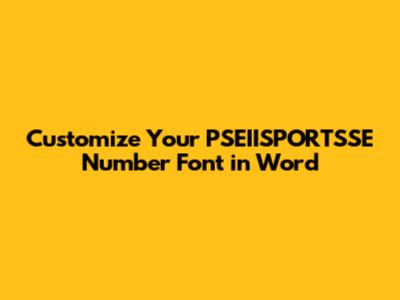
Hey sports fanatics and Word wizards! Ever wanted to give your documents, presentations, or even your fantasy league write-ups a personalized touch with some awesome PSEIISPORTSSE number fonts? You're in luck, because we're diving deep into how to customize your number fonts, especially the unique style of PSEIISPORTSSE, right within Microsoft Word. I'll walk you through everything, making it super easy to add that professional or personal flair you're after. Get ready to transform those plain numbers into something eye-catching! Let's get started.
Understanding PSEIISPORTSSE Number Fonts
Before we jump into the nitty-gritty, let's talk about what makes PSEIISPORTSSE number fonts special. Think of these as the stylized digits you see in sports scores, team jerseys, or even cool digital displays. The key is in their distinct design – they're often bold, clear, and designed for high visibility. They usually boast a consistent look, making them instantly recognizable and adding a sporty feel to your documents. These fonts come in various styles, from classic block numbers to more elaborate designs, depending on the look you're going for. Finding the right PSEIISPORTSSE number font can significantly elevate the visual appeal of any document, whether you're creating a flyer for a local sports event, designing a team roster, or just spicing up a report with some athletic aesthetics. They're designed to be easily readable from a distance, which makes them perfect for any visual display.
Now, how do you actually get these fonts into your Word documents? That's where we're headed next. The process involves a couple of simple steps: finding the fonts, installing them on your computer, and then using them in Word. It's a bit like learning a new skill, but trust me, it’s easier than a free throw with no pressure. Once you know how to do it, you'll be able to create some amazing sports-themed documents that will definitely stand out. Keep in mind, you're not limited to just sports; the right PSEIISPORTSSE font can add a powerful visual element to any project. Whether it’s presentations, newsletters, or even social media graphics, these fonts will give you that edge.
Using the New Font in Microsoft Word
Alright, time to bring your new PSEIISPORTSSE number font to life in Microsoft Word! Once you've installed the font and restarted Word, you're ready to start using it. Open your Word document or start a new one. Now, type the numbers you want to customize. Highlight the numbers, and then go to the font selection drop-down menu on the Home tab of the ribbon. Scroll through the font list until you find your installed PSEIISPORTSSE font. Select it. Boom! Your numbers should now be displayed in the new font.
If you want the font to look a certain way, like bold or italic, you can use the font style options available in the font group on the Home tab. You can also adjust the font size to fit your needs. Word's formatting tools let you fine-tune the numbers. For instance, you might want to increase the size to make them more visible, or perhaps make them bold to match the style of the text around them. Experiment with the different options available to see what works best for your specific document.
Word allows you to set the default font for your document. This means you can ensure all numbers you type will automatically appear in your PSEIISPORTSSE font. To do this, type a number, format it using your preferred font style, then right-click on the number and select “Set as Default Font.” This feature can save you time if you use the same font repeatedly throughout your document. Keep playing around with the different options – the more you experiment, the better you’ll get at creating a cohesive and visually appealing document. Remember, the goal is to enhance readability while aligning with the overall theme you're trying to achieve.
Advanced Tips and Tricks
Let’s dive into some pro tips to really make those PSEIISPORTSSE number fonts shine. First up, think about font pairing. Not all fonts were created equal, and some styles blend better with certain PSEIISPORTSSE fonts than others. Choose a complementary font for your body text that doesn't compete with the numbers. If your numbers are bold and sporty, go for a clean, easy-to-read font for the rest of your text. Consider using Google Fonts, where you can preview different font combinations. This can help you figure out what looks best before committing to a design. Try to use font pairing to make your document look harmonious.